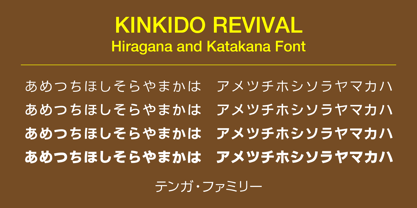
SDTenga
by Kinkido
The SDTenga Font Family was designed by and published by Kinkido. SDTenga contains 4 styles and family package options. More about this family
This is a modern Japanese typeface combined with Gothic (Kanji).
KINKIDO REVIVAL is a project to revive custom-made fonts created between 1997 and 2000. Handwritten Style Fonts are based on the basic styles of calligraphy: regular script, semi-cursive script, and cursive script. Lettering Style Fonts are based on Edo-period Japanese characters, modern design characters, and contemporary corporate characters. Font names ending with “Edu” are limited editions with approximately 1,000 Chinese characters, while those ending with “Bas” have approximately 3,000 Chinese characters.